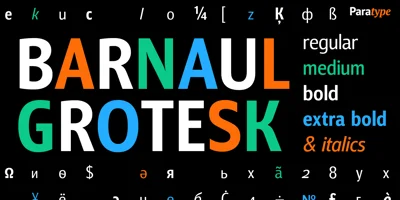
Barnaul Grotesk Font
Barnaul Grotesk Font is perfect for Eastern European cultural projects, Russian heritage materials, Siberian tourism branding, industrial mining companies, rugged outdoor gear manufacturers, contemporary Slavic design applications, cultural exchange programs, and authentic Russian-influenced communications.
What makes Barnaul Grotesk Font exciting is its robust Siberian character that embodies the hardy resilience and industrial strength of Russian regional typography through sturdy, no-nonsense letterforms. This powerful typeface features strong geometric construction with Slavic influences that evoke the enduring spirit and practical functionality of Siberian industrial culture, making it ideal for projects requiring authentic Russian design sensibility and the representation of Eastern European heritage in their cultural communications.
The Barnaul Grotesk Font family includes multiple weights from regular to black, plus Cyrillic character support and Eastern European typography elements that enhance the Slavic aesthetic with authentic Russian styling and regional design elements for cultural applications.
This formidable typeface delivers exceptional Eastern European authenticity and industrial appeal, making Barnaul Grotesk Font a valuable resource for Russian cultural and industrial design projects. The font's Siberian character makes it perfect for organizations wanting to convey regional heritage and industrial reliability in their brand communications. Russian cultural institutions and Siberian tourism boards particularly appreciate its ability to communicate authentic regional identity and hardy resilience instantly to international audiences. The robustly designed letterforms ensure optimal readability while preserving the distinctive appeal of Russian regional typography across all applications from cultural exhibitions to industrial company materials. Whether you're creating materials for Russian cultural festivals or developing branding for Siberian adventure tourism, this font provides the perfect combination of regional authenticity and commercial effectiveness. Creative professionals consistently choose this typeface for projects requiring that ideal balance of Eastern European heritage and contemporary design standards, making it essential for cross-cultural communications that celebrate both Russian regional identity and international design accessibility.